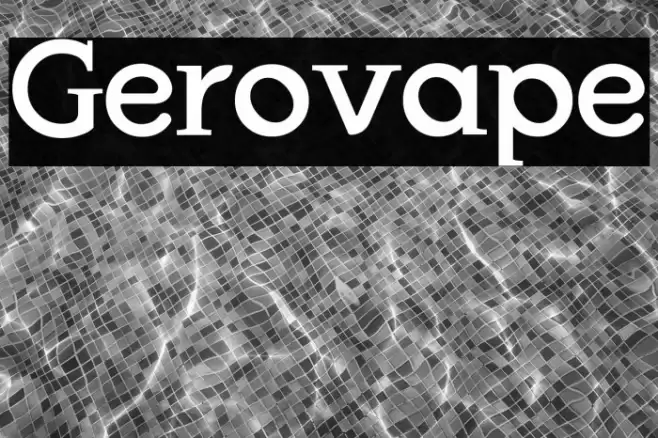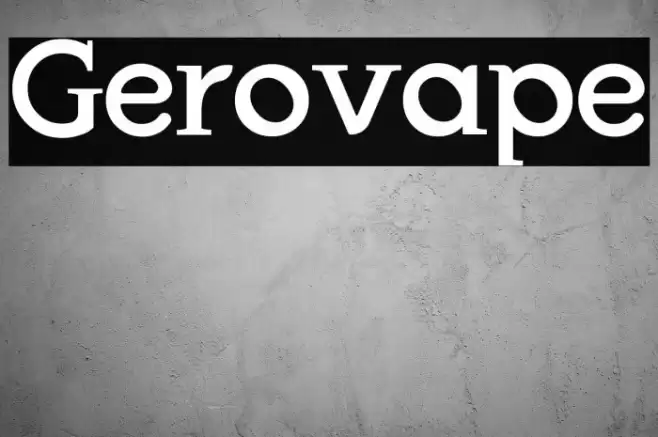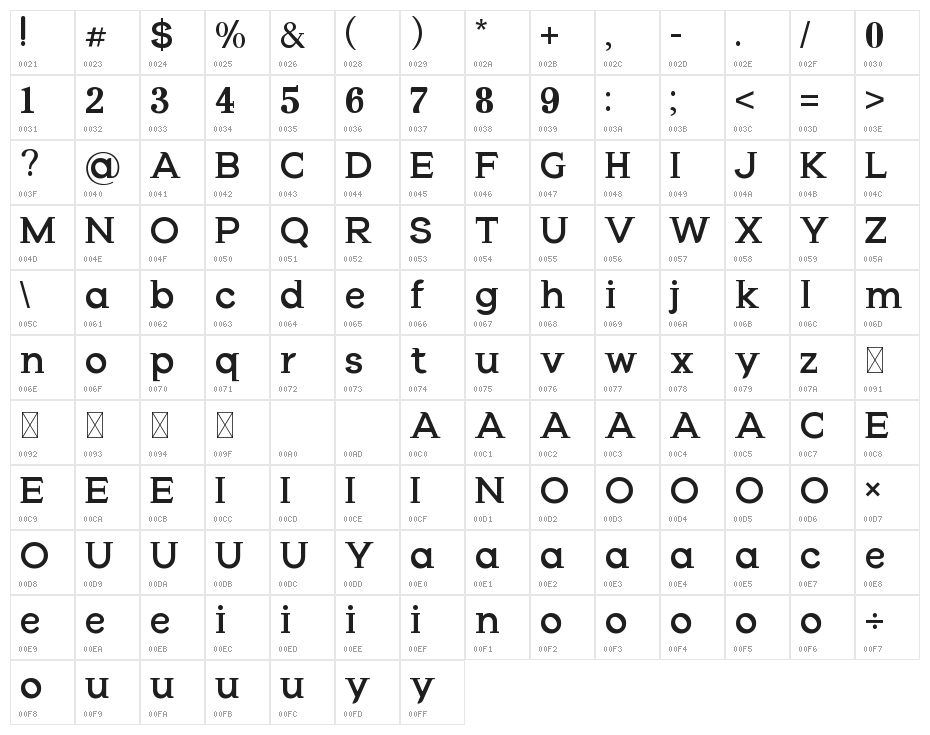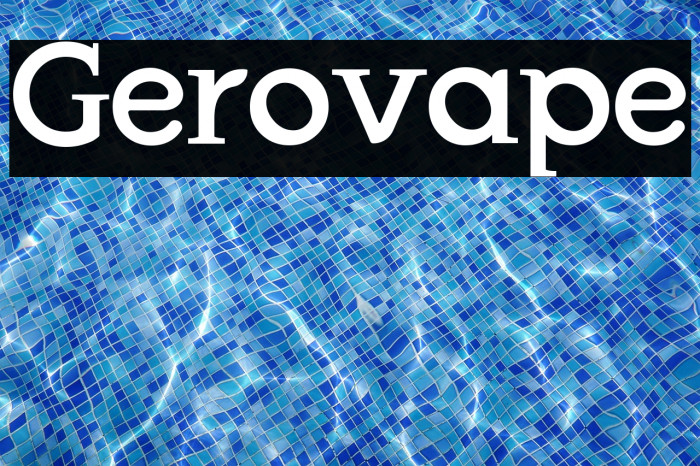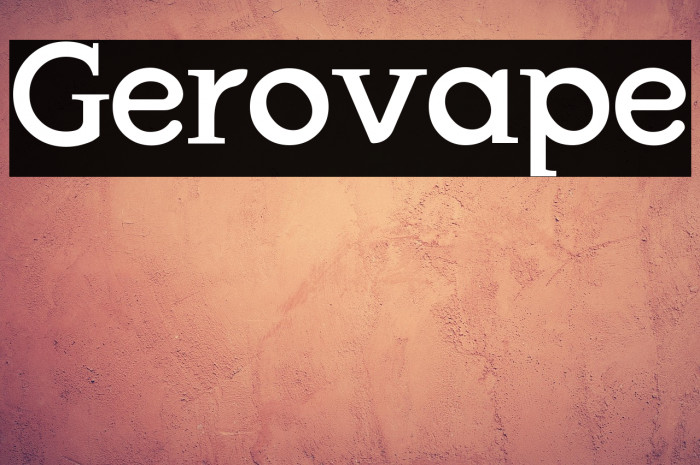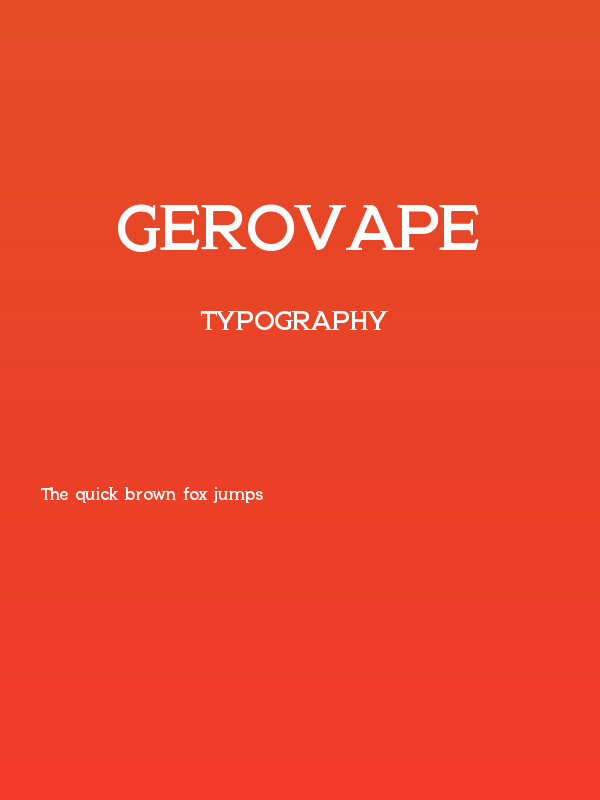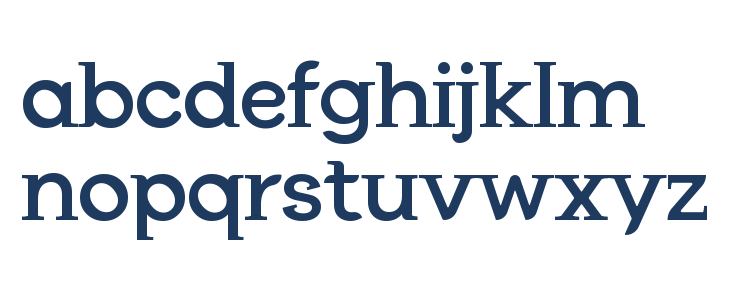
Gerovape Font
Gerovape Description
This font features a classic serif design with a modern twist. The uppercase letters are bold and commanding, with strong, clean lines and a slightly condensed appearance. The lowercase letters maintain a consistent style, offering a harmonious balance between elegance and readability. The numerals are robust and well-defined, making them suitable for various applications. Special characters are thoughtfully designed, ensuring they integrate seamlessly with the rest of the typeface. The overall appearance is sophisticated yet approachable, making it versatile for numerous design projects.
A modern serif font with bold, clean lines and a slightly condensed style from Regular fonts.
- Proposed Projects: Ideal for editorial design, branding, book covers, and sophisticated advertising campaigns.
- Use Case: Headlines, Logos, Editorial Design